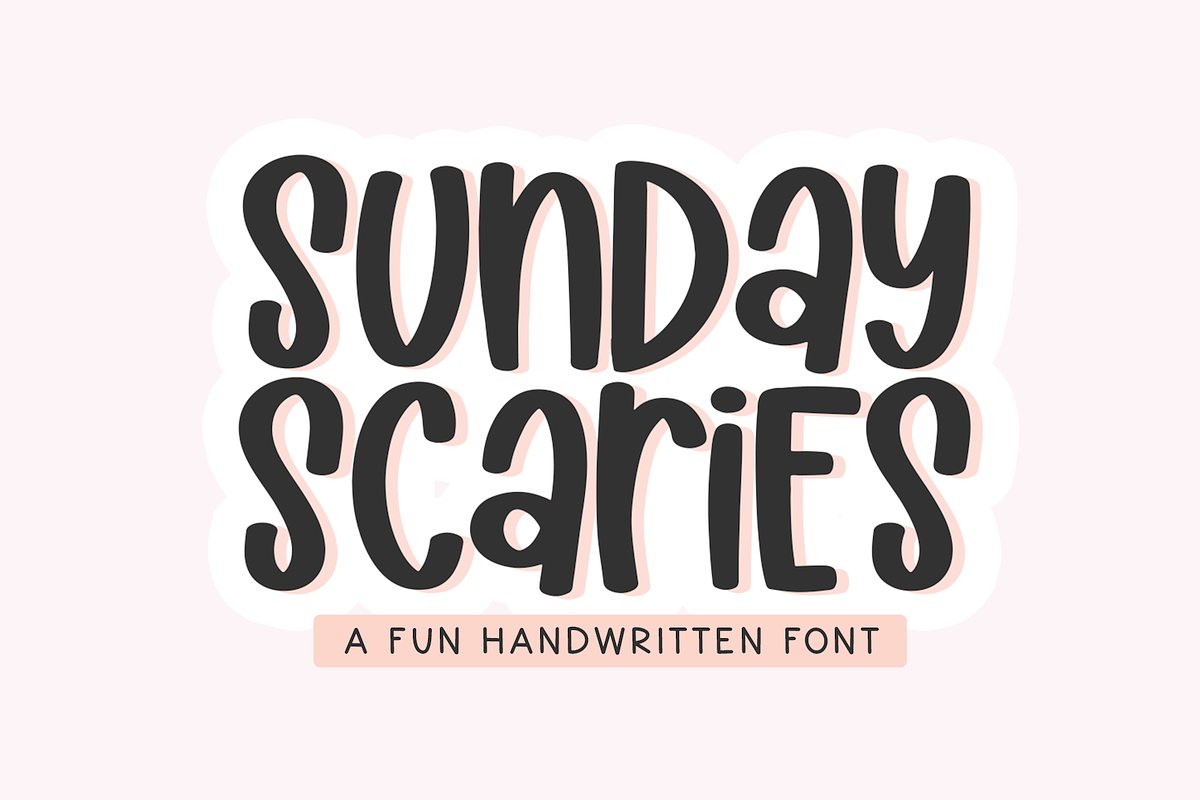
Sunday Scaries | Handwritten Font Free Download is a playful, expressive typeface that captures the imperfect charm of real handwriting. It’s perfect for casual branding, Instagram quotes, planners, and anything that needs a personal, laid-back touch. This font gives your text a human feel—raw, emotional, and totally relatable.
Whether you're designing for lifestyle blogs, digital journals, or cozy product packaging, Sunday Scaries brings authenticity and warmth. Its slightly messy strokes mimic the rush of Sunday night thoughts, making it both quirky and endearing.
If you’re looking for a font that speaks with personality and heart, Sunday Scaries is your go-to. Add a handwritten twist to your next creative project with Sunday Scaries | Handwritten Font Free Download—a perfect blend of style and spontaneity.